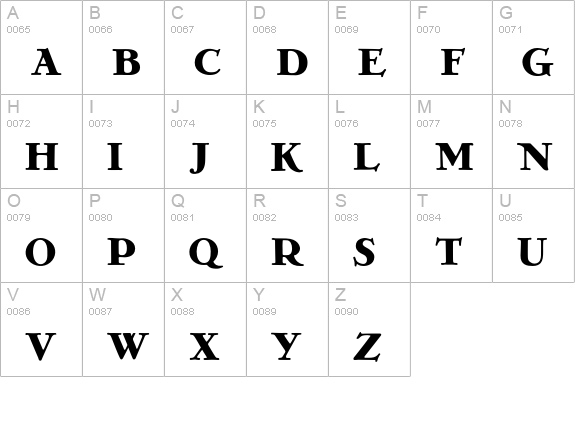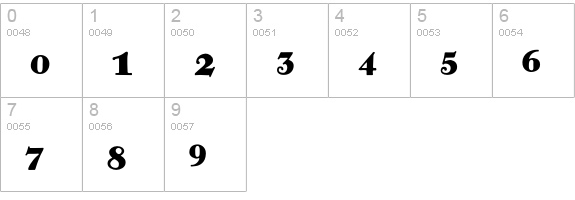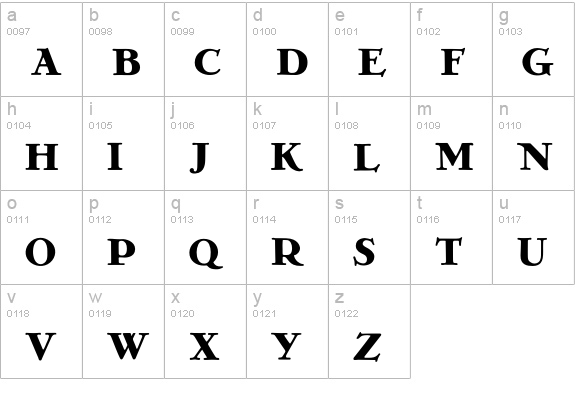
GrecoDeco-Solid Font Details
GrecoDeco-Solid font is a stunning display typeface that combines elements of ancient Greek design with a modern twist. This unique font features bold, solid letterforms with intricate detailing that give it a timeless and elegant look. Perfect for adding a touch of sophistication to your designs, GrecoDeco-Solid font is ideal for headlines, logos, posters, and more. What sets GrecoDeco-Solid font apart is that it is available for free download at FontsMarket.com. This means that you can easily access this premium font without any cost, making it a valuable addition to your font collection. Don't miss out on the opportunity to enhance your projects with the beauty and style of GrecoDeco-Solid font. Download it today and elevate your designs to new heights!